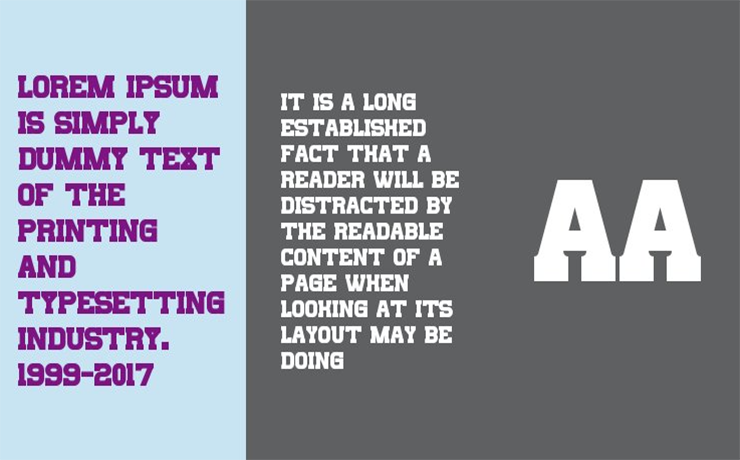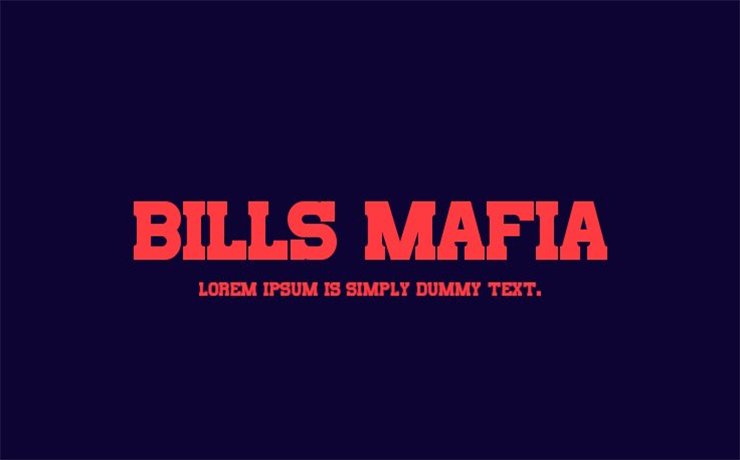
Bills Mafia Font is a lovely typeface with a strong design that will fit multipurpose projects. Discover all the characters and use this font in your upcoming projects.
A US-based font designer Jayde Garrow took the charge of designing it and publishing it for the first time in April 2019.
Only because of its display letter formats, does it have a clean structure in which the thickness of each letter is very high.
Therefore, viewers can easily read it without any hesitation because its structure was not spread over the print. Plus, it has the potential to be the perfect font pairing with any other basic font family.
You can see that everyone can easily use this old-school font for display and printing purposes, especially for bold headings.
This is really a memorable choice thing for movie posters, brand logos, posters, display banners, book covers, t-shirt printing, advertisements, headers, special event cards, product designs, and many more.
It has available in a single style that contains the Truetype feature. And this single style has 96 glyphs with 1000 units per em.